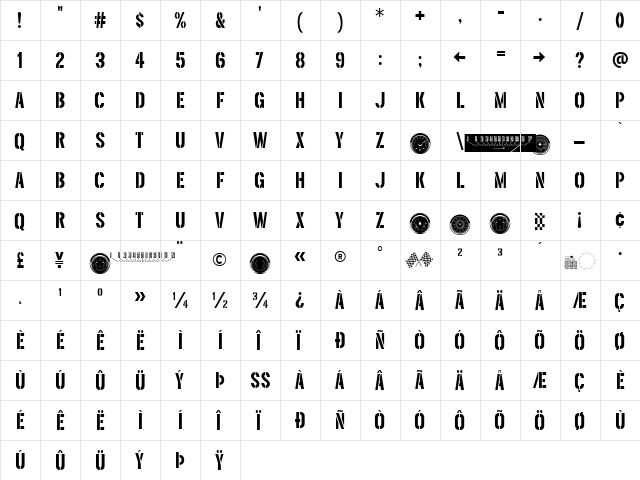
Threefortysixbarrel Regular
| Foundry | Typodermic |
Design Context for Threefortysixbarrel Typeface
Threefortysixbarrel offers clean, dependable letterforms without strong stylistic allegiance, making it a practical choice for designers who need flexibility.